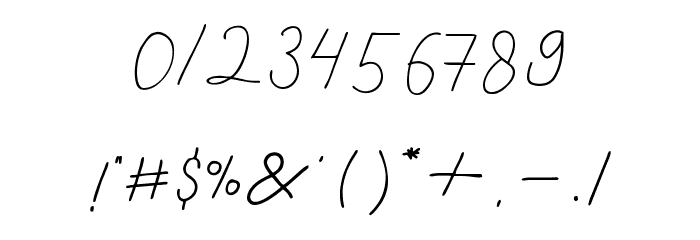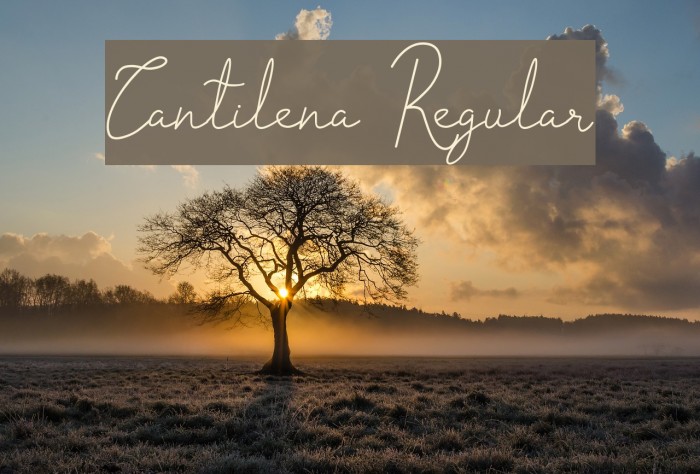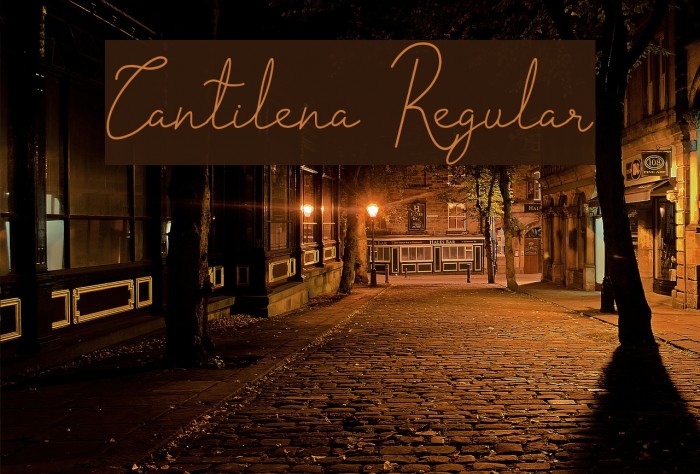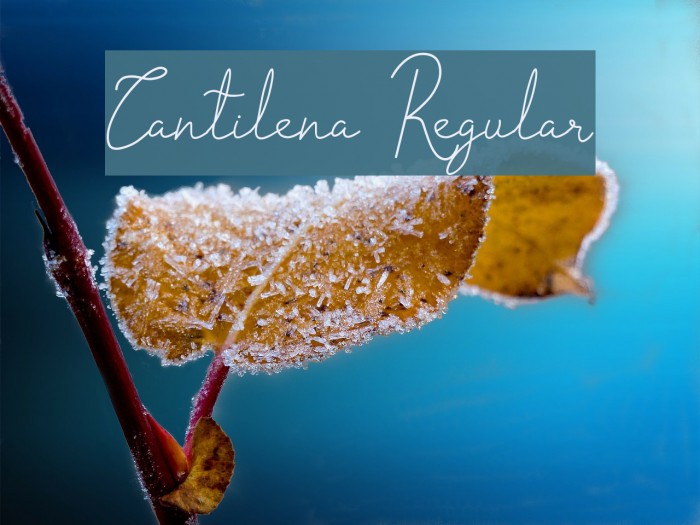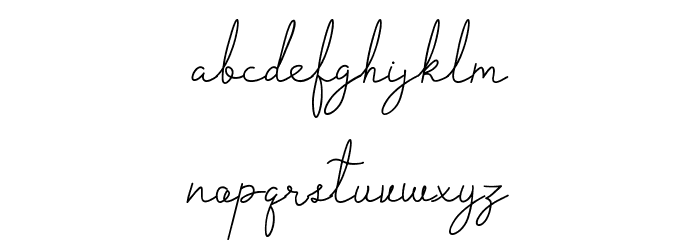
Cantilena Regular Font
Cantilena Regular Description
This font exhibits a delicate and flowing script style, characterized by its elegant and graceful curves. The uppercase letters are tall and slender, with a slight slant that adds a sense of movement and fluidity. The lowercase letters maintain a consistent style, with smooth connections between strokes, enhancing the handwritten appearance. The numerals and special characters are crafted with the same attention to detail, ensuring a cohesive look across all elements. This font's airy and light design makes it suitable for projects that require a touch of sophistication and charm.
A delicate and flowing script font with elegant curves from Uncategorized fonts.
- Proposed Projects: Ideal for wedding invitations, greeting cards, elegant branding, and personal stationery.
- Weight: Light
- Overall Style: Elegant
- Use Case: Logos, Invitations, Decorative text